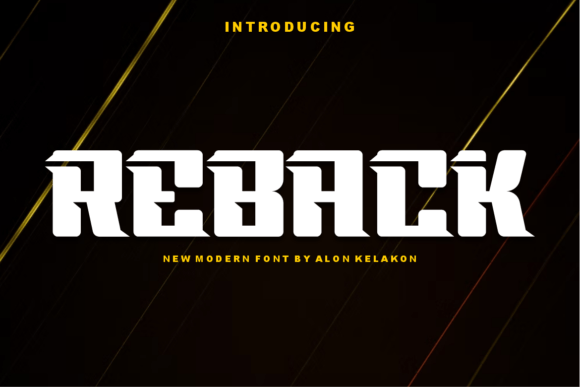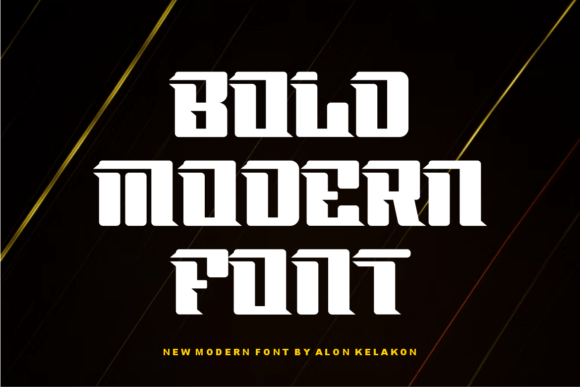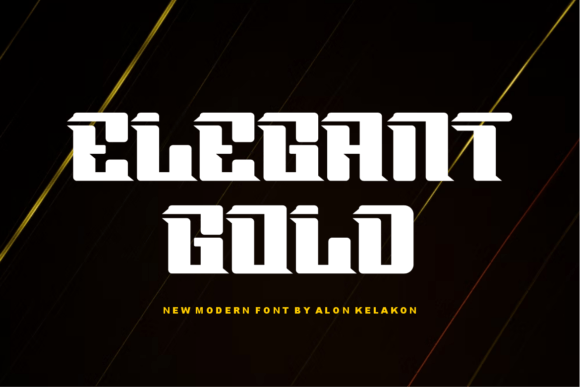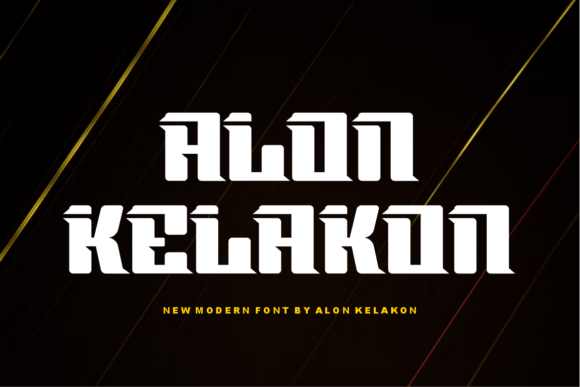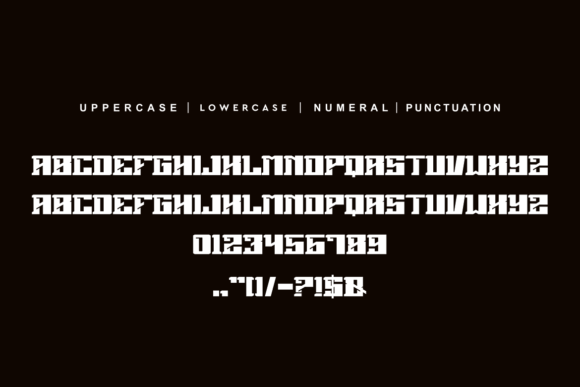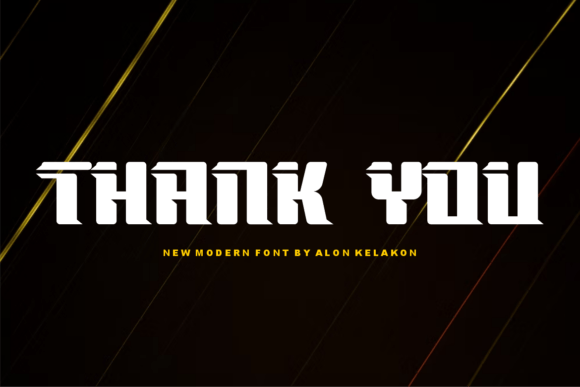
Reback Font
REBACK FONT SPECIMEN
Reback is a bold and unique slab serif font.  It is ready to use for your design like labeling, clothing, movie screen, poster, movie title, gigs, album covers, logos, and much more.